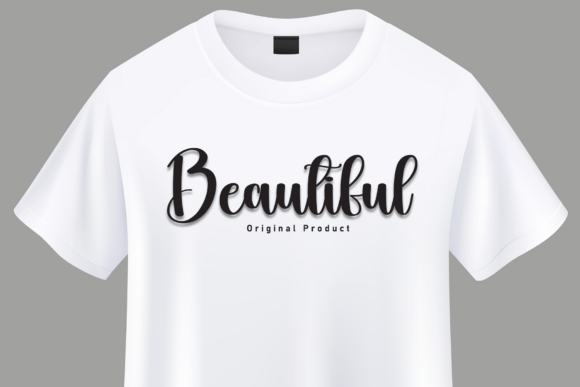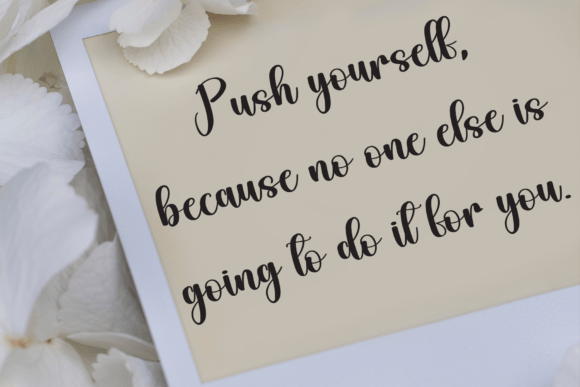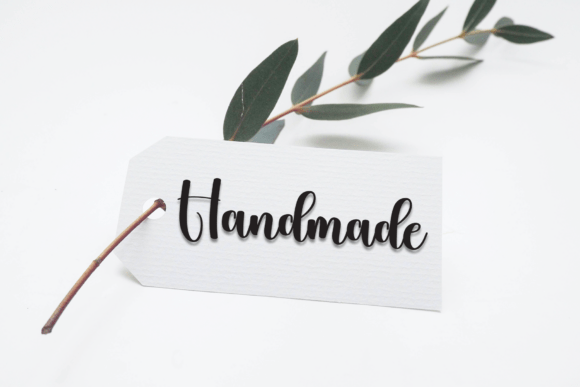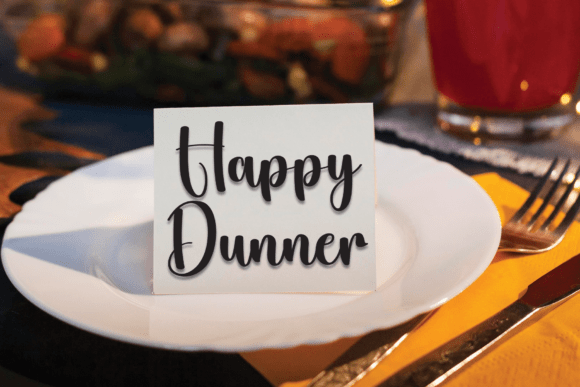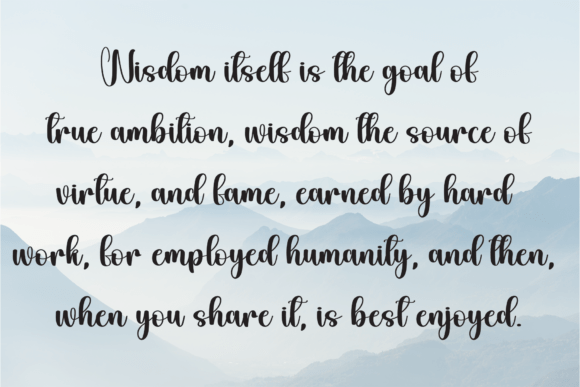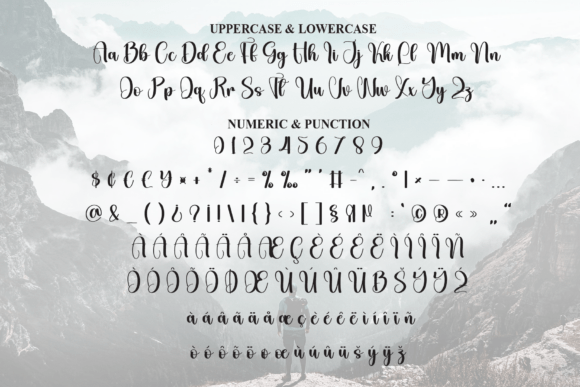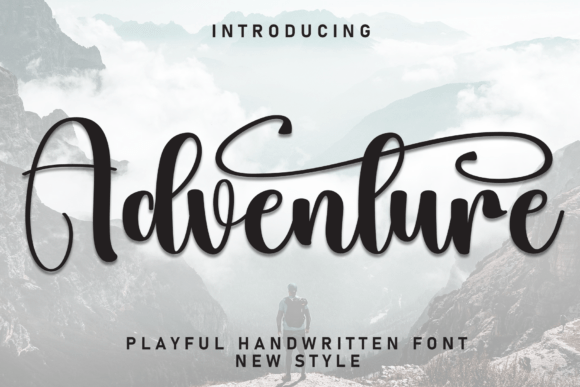
Introducing Adventure Font: Elevate Your Designs with Elegance and Charm
Are you on the lookout for a font that can add a touch of sophistication and modern flair to your designs? Look no further than Adventure Font, a stylish handwritten script font that is sure to elevate your projects to new heights. With its flowing strokes and organic curves, Adventure Font brings warmth and refinement to any design, making it perfect for a wide range of applications.
What Makes Adventure Font Stand Out?
Adventure Font is not just another script font; it’s a carefully crafted typeface that combines elegance with a modern edge. Its unique blend of classic and contemporary elements makes it an ideal choice for designers and crafters looking to add a personal touch to their work. Whether you’re creating branding materials, invitations, or social media graphics, Adventure Font is sure to make your designs stand out.
Key Features of Adventure Font
- Handwritten Script Style: Adventure Font boasts a beautiful, handwritten script style that adds a personal touch to any design.
- Elegant and Modern: With its flowing strokes and organic curves, this font combines elegance with a modern flair, making it perfect for a wide range of design applications.
- Warmth and Sophistication: Adventure Font brings a sense of warmth and sophistication to any project, making it ideal for designs that require a refined touch.
- Versatile: This font is suitable for a variety of design projects, including branding, invitations, social media graphics, and more.
Adventure Font is a versatile typeface that can be used by both designers and crafters to add a touch of elegance and charm to their work. Whether you’re creating professional branding materials or unique craft projects, this font is sure to inspire your creativity. Its ease of use and flexibility make it an excellent choice for anyone looking to elevate their designs.
- Pair it with Other Fonts: Adventure Font works well when paired with other fonts, especially sans-serif fonts. Experiment with different combinations to find the perfect balance for your design.
- Use it for Headings and Titles: The elegant and modern style of Adventure Font makes it perfect for headings and titles. Use it to add a touch of sophistication to your designs.
- Add a Personal Touch: Use Adventure Font to add a personal touch to your designs. Its handwritten script style makes it perfect for creating unique and personalized designs.
Adventure Font is a stylish and versatile typeface that is sure to elevate your designs to new heights. With its elegant and modern style, flowing strokes, and organic curves, this font brings warmth and sophistication to any project. Whether you’re a designer or crafter, Adventure Font is an excellent choice for anyone looking to add a touch of elegance and charm to their work.